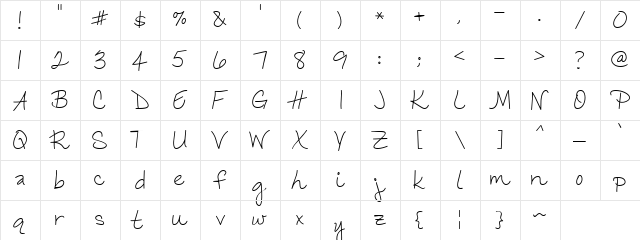
CK Carefree Regular Font Preview
CK Carefree Regular
Design Context for CK Carefree Typeface
CK Carefree is a composed and adaptable typeface that performs quietly and consistently across a wide range of design contexts.